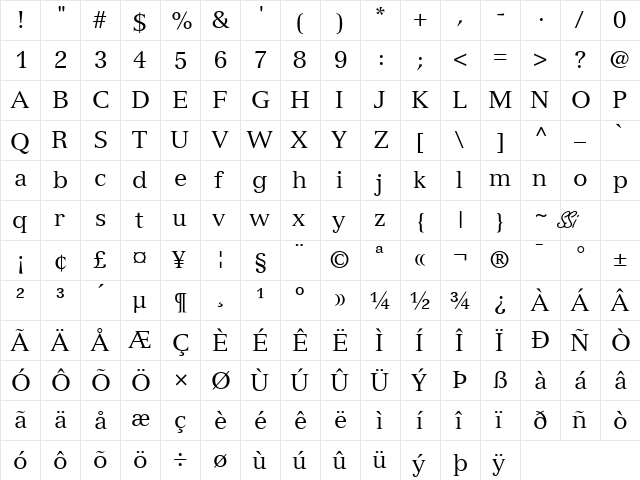
Nuance SSi Regular
Design Context for Nuance SSi Typeface
Nuance SSi is a composed and adaptable typeface that performs quietly and consistently across a wide range of design contexts.